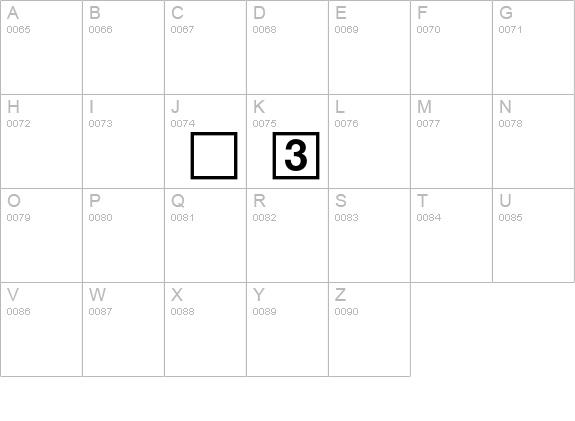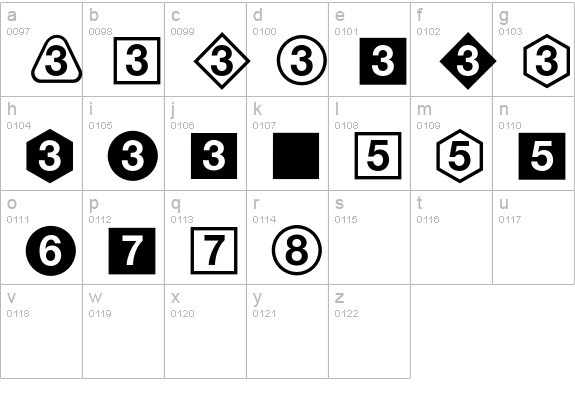
ZubehoerPi Font Details
ZubehoerPi font is a modern and stylish typeface that exudes elegance and sophistication. With its sleek lines and unique design, this font is perfect for adding a touch of sophistication to any project. Whether you're designing a logo, creating a poster, or crafting a digital masterpiece, ZubehoerPi font will elevate your work to the next level. The best part? ZubehoerPi font is completely free to download at FontsMarket.com, making it accessible to everyone looking to enhance their designs with a touch of class. Don't miss out on this amazing opportunity to elevate your design game with the stunning ZubehoerPi font - download it today and let your creativity soar!